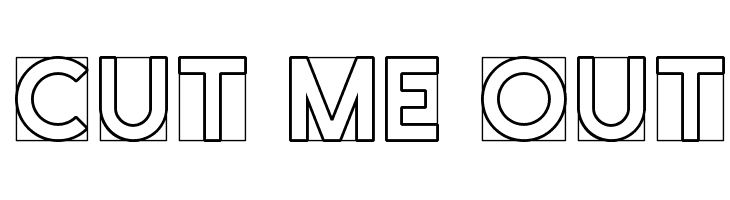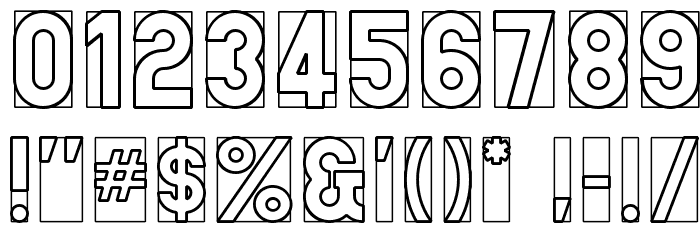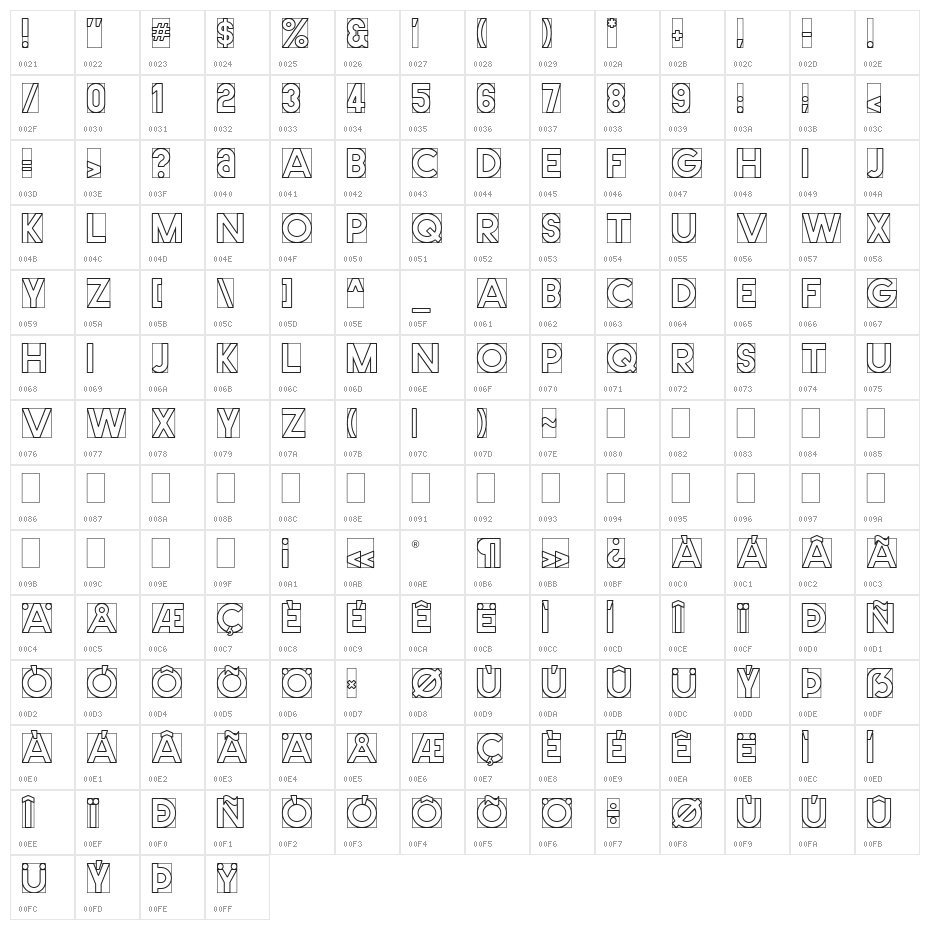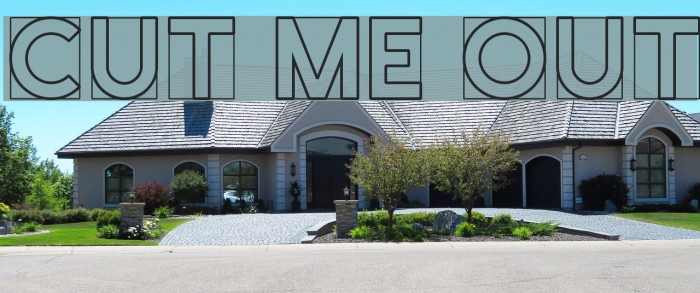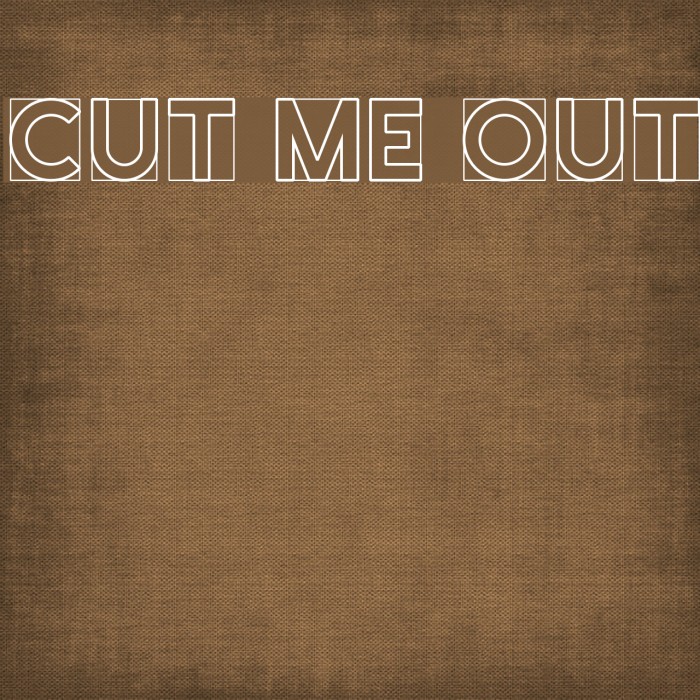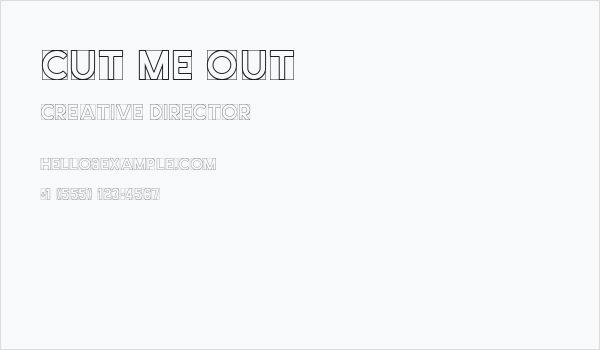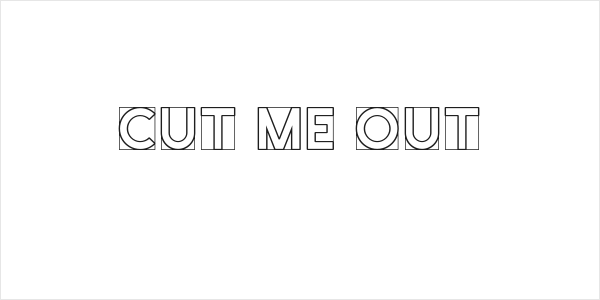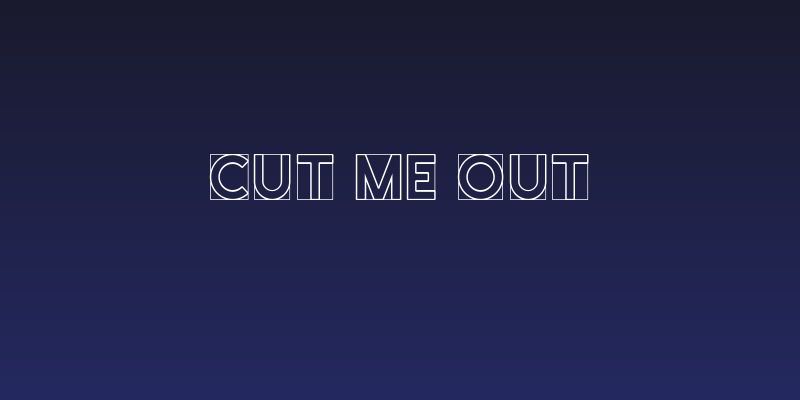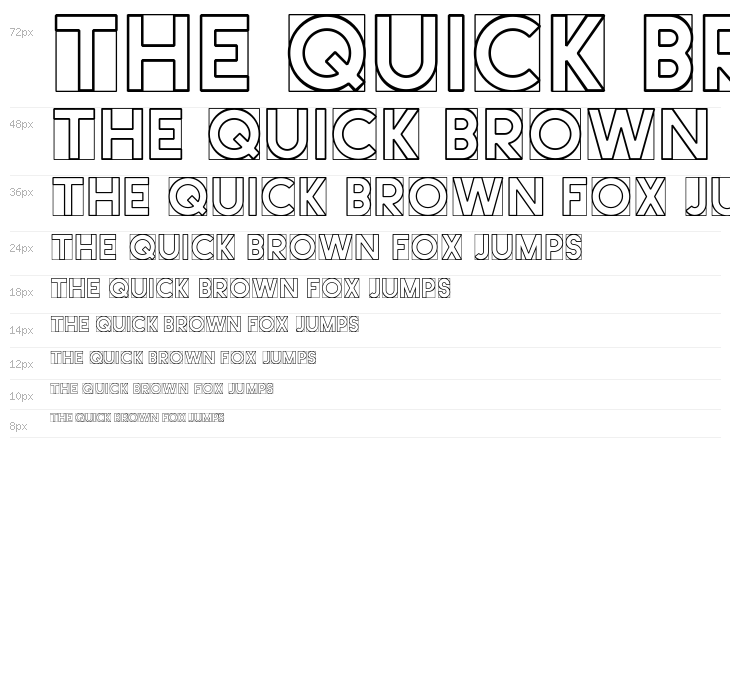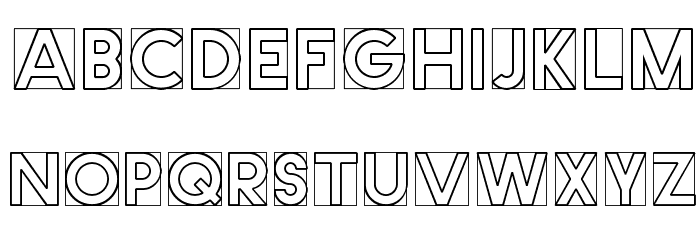
Cut Me Out Font
Cut Me Out Description
This font features a unique and playful design with each character enclosed in a square outline, giving it a cut-out appearance. The letters are bold and geometric, with sharp angles and clean lines that create a modern and structured look. The uppercase and lowercase letters maintain a consistent style, while the numbers and special characters follow the same design principles, ensuring uniformity across all elements. The font's distinct style makes it stand out, offering a creative and eye-catching option for various design projects.